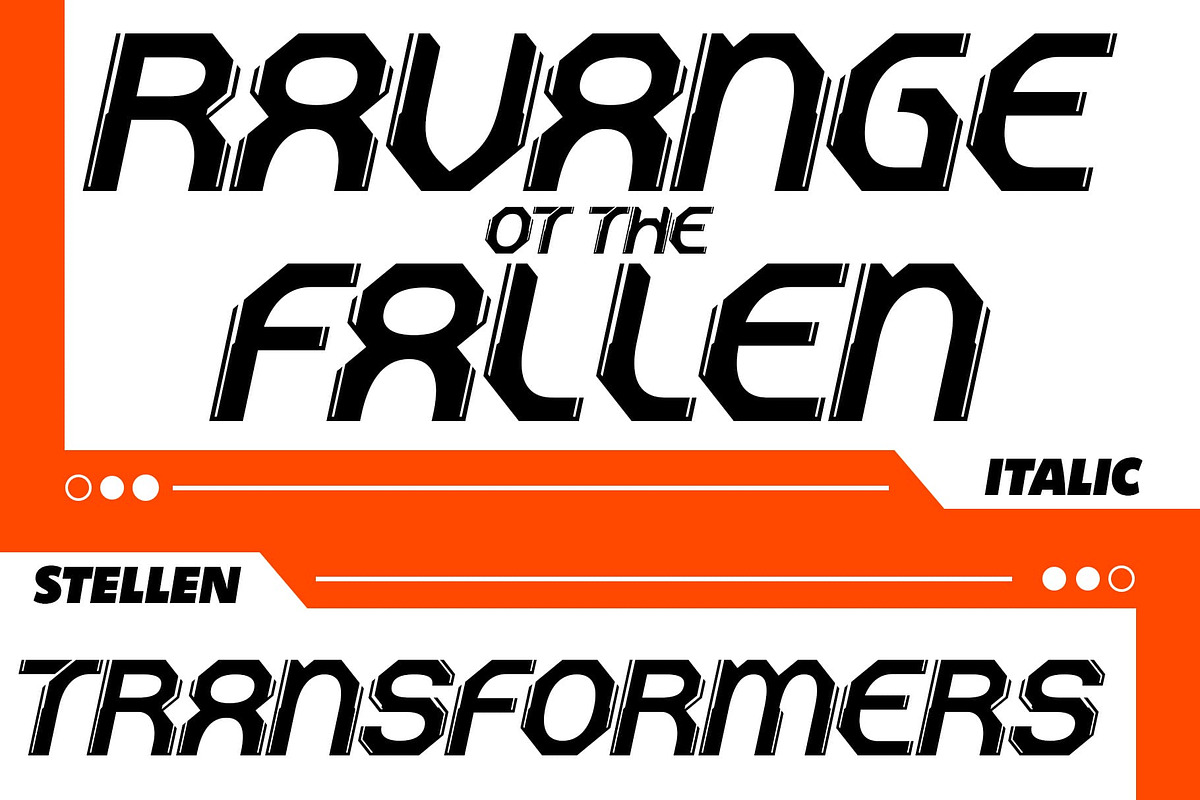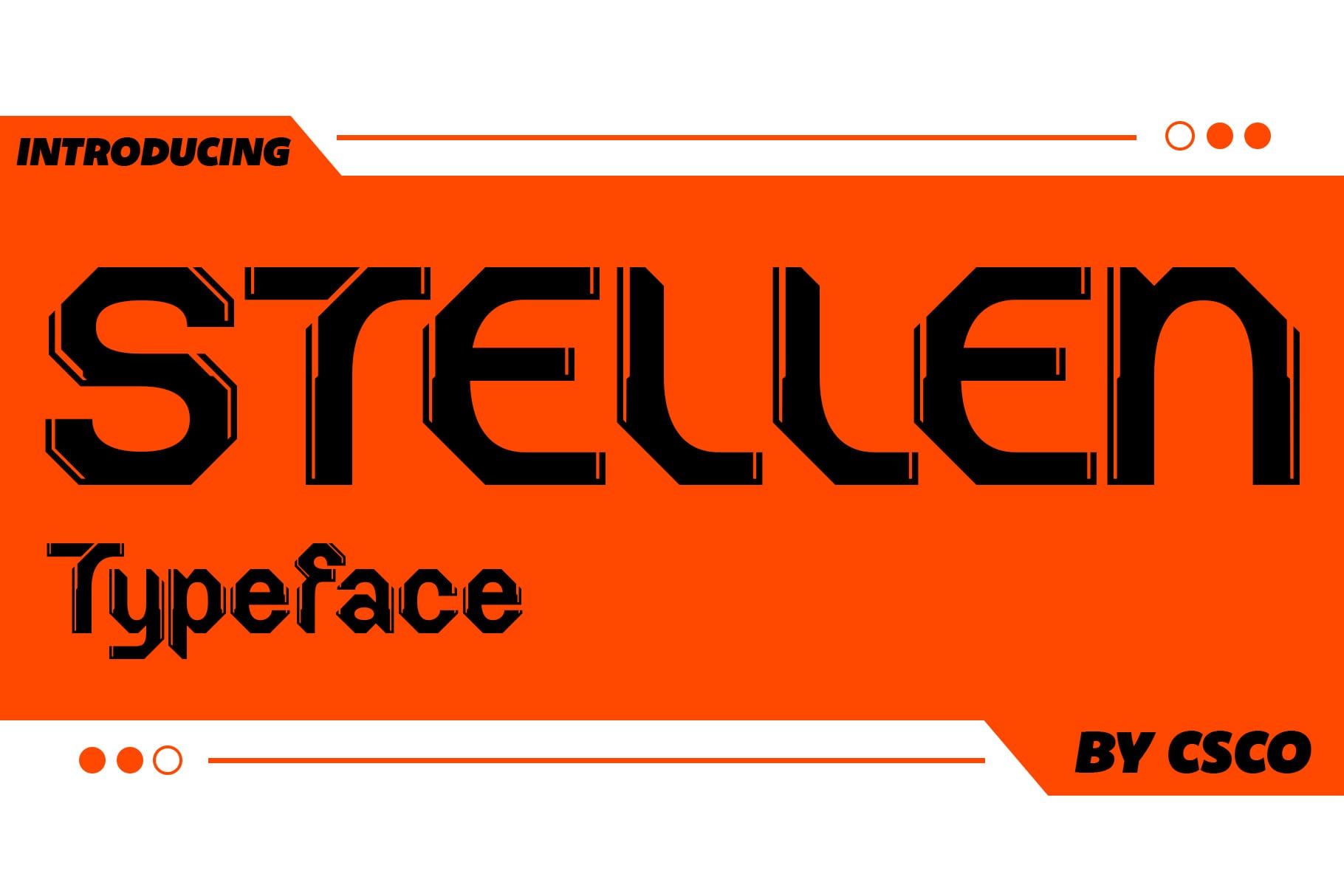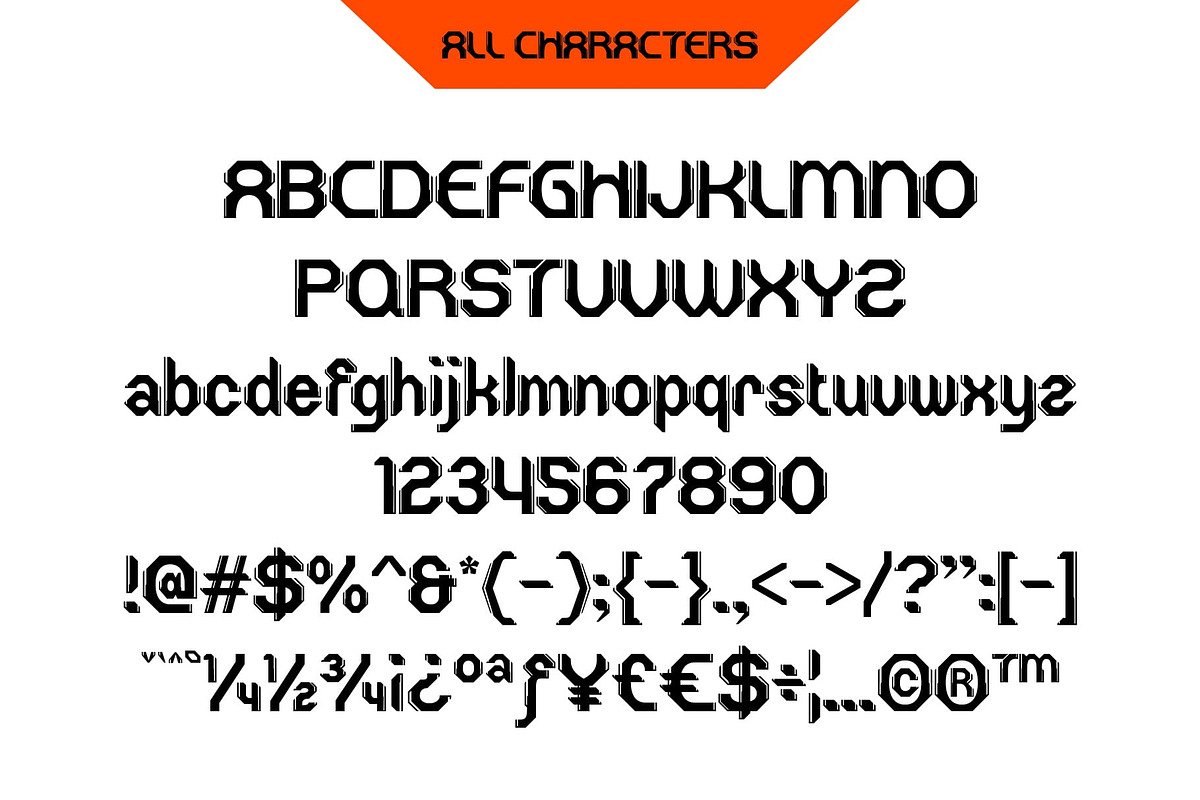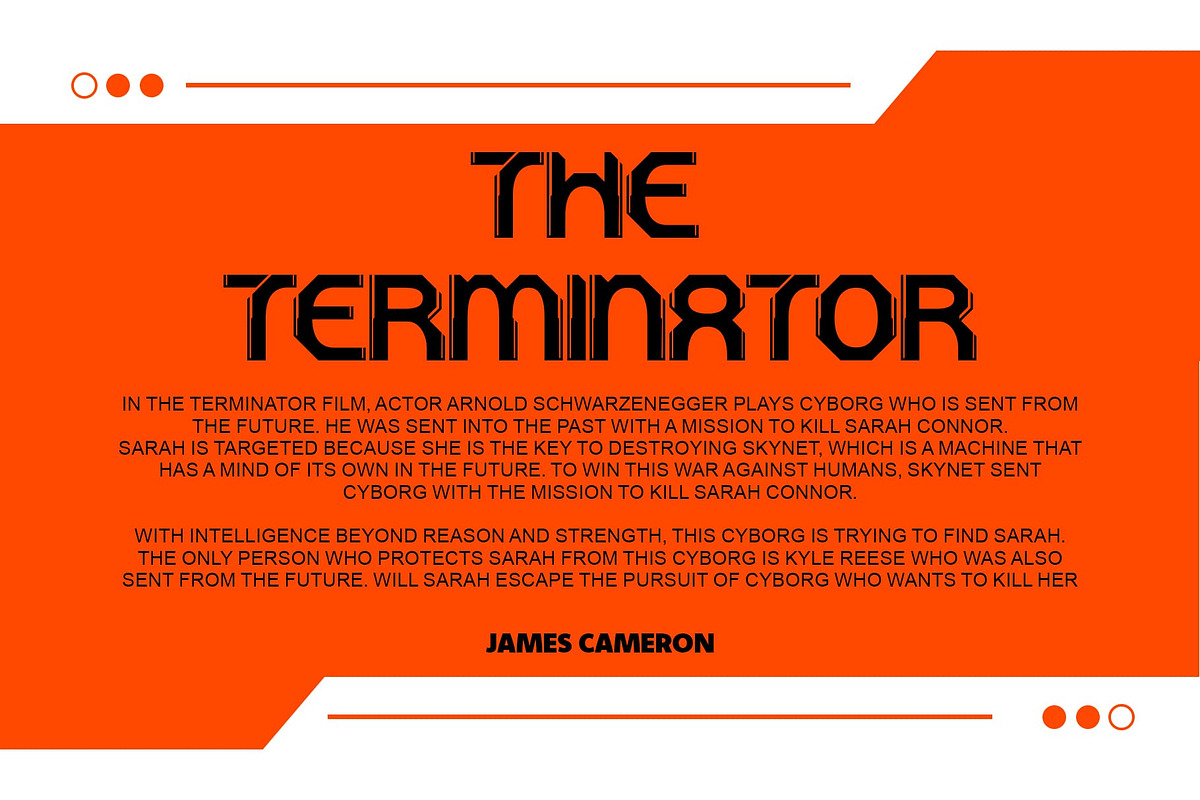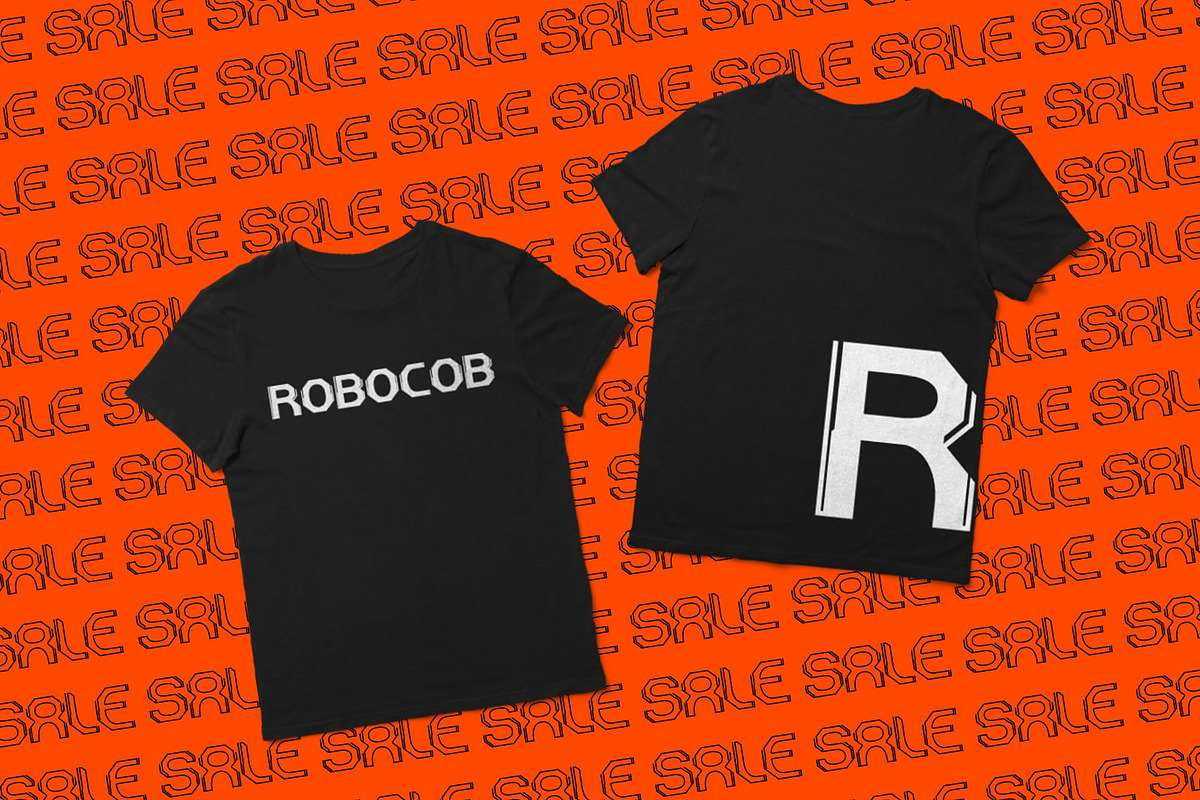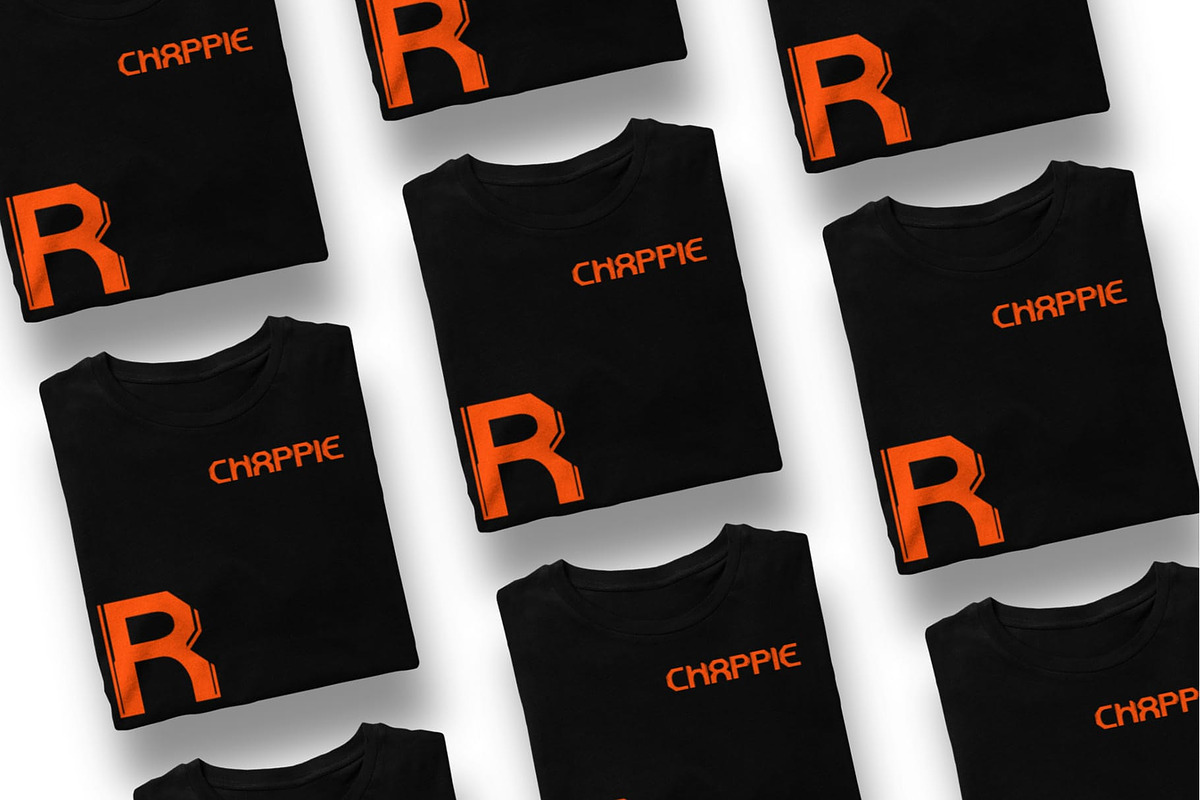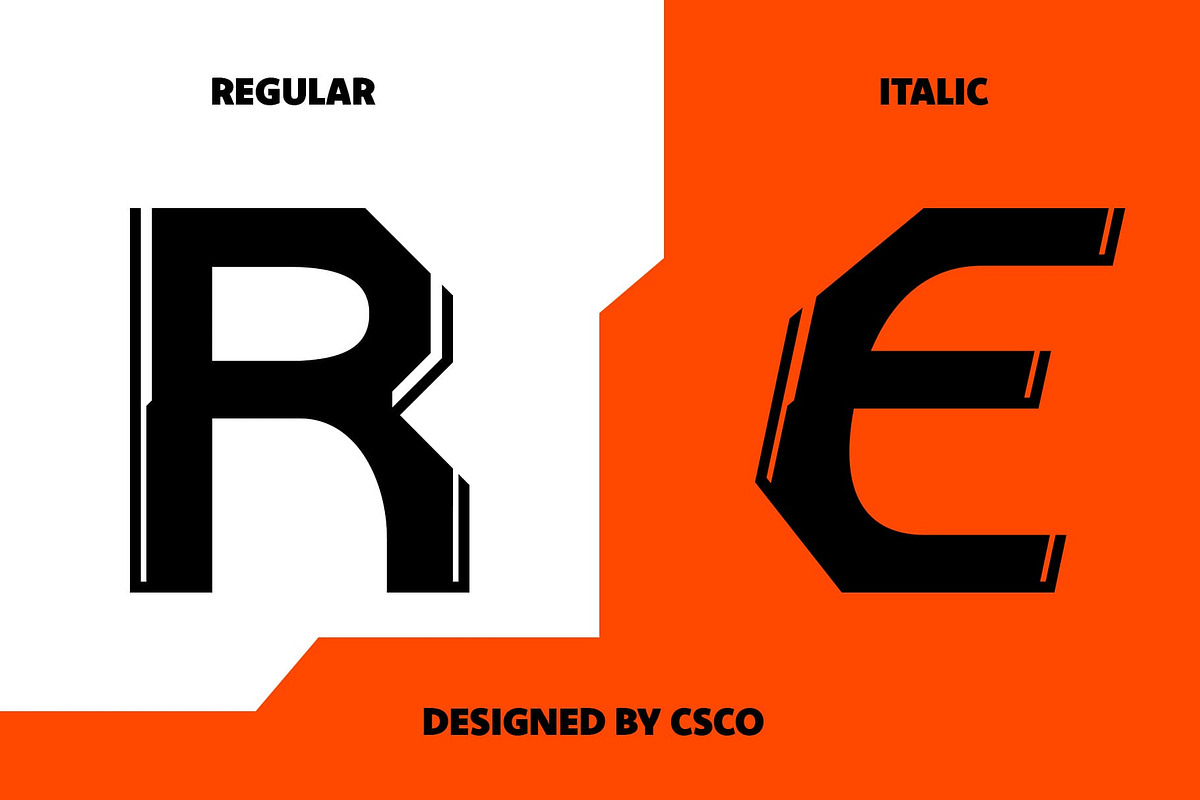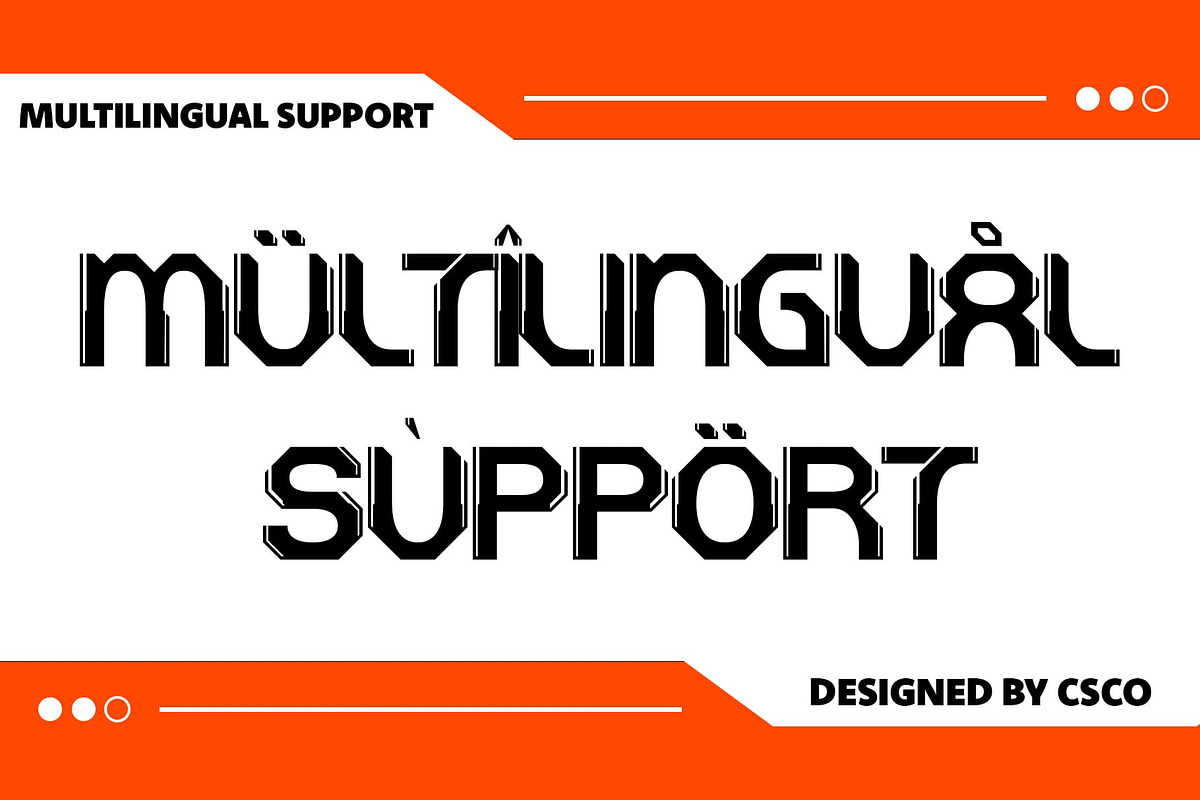
Stellen – Futuristic Font
Stellen Futuristic Font
Inspired by Cyborg Life Stellen is a futuristic font that draws inspiration from the life of cyborgs, envisioning a world where man and machine seamlessly integrate. Its sleek and dynamic display design reflects the aesthetics of futuristic technology.
Innovative Design Elements With its sharp angles, geometric shapes, and futuristic detailing, Stellen pushes the boundaries of conventional typography. Each character embodies innovation and progress, capturing the essence of a cybernetic future.
Perfect for Futuristic Projects Tailored for futuristic projects, Stellen excels in conveying a sense of technological advancement and forward-thinking. Whether used in sci-fi novels, tech blogs, or futuristic branding, it captivates audiences with its avant-garde appeal.
Versatility in Application Despite its futuristic aesthetics, Stellen offers versatility in application. From digital interfaces to poster designs, its bold and futuristic style complements a wide range of creative endeavors, adding a touch of sci-fi sophistication.
Shaping the Future of Design Stellen emerges as a beacon of innovation in the world of typography, offering a glimpse into the future of design. With its futuristic inspiration and versatile application, it invites designers to embrace the possibilities of tomorrow and shape the future of visual communication. Step into the future with Stellen and let your designs transcend the boundaries of time and space.